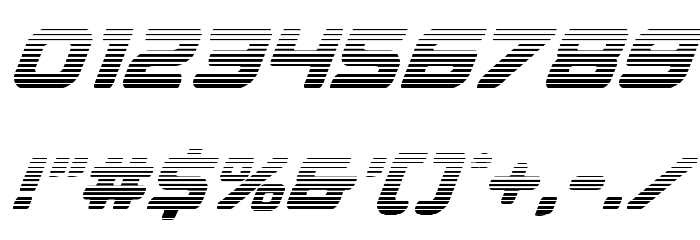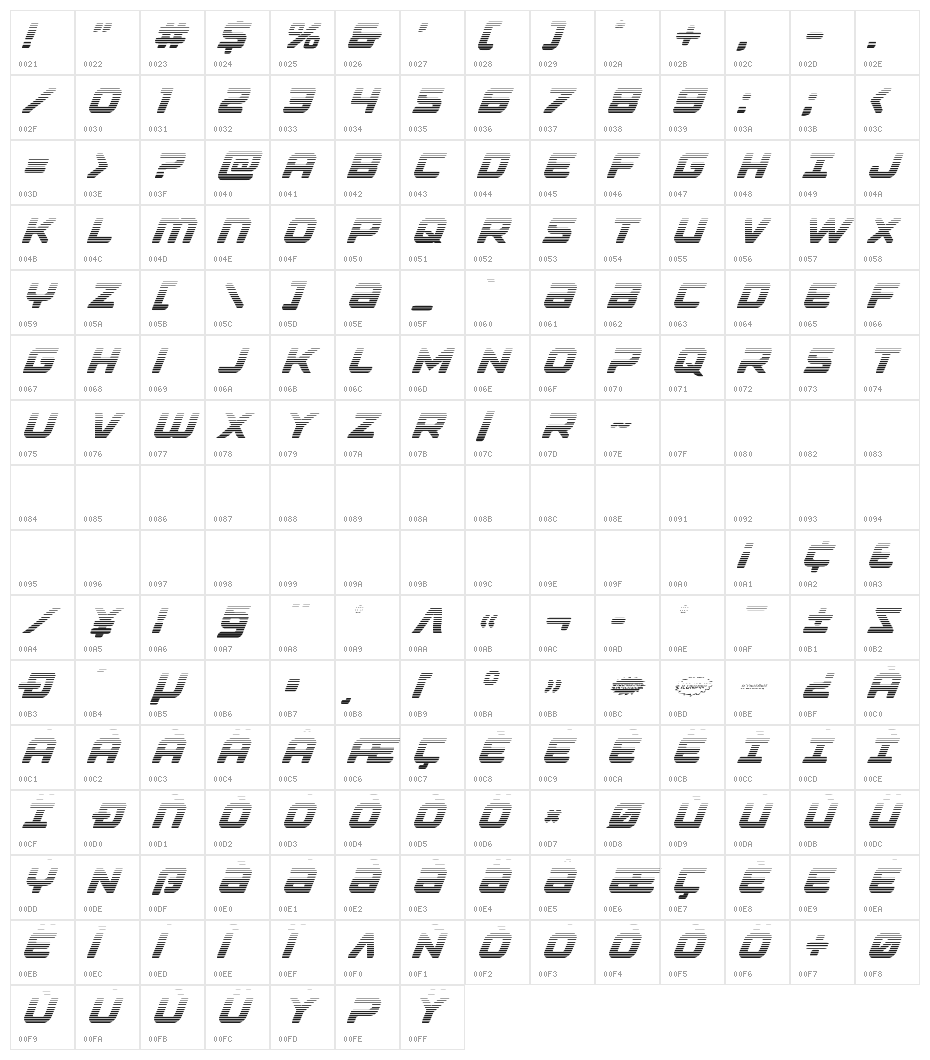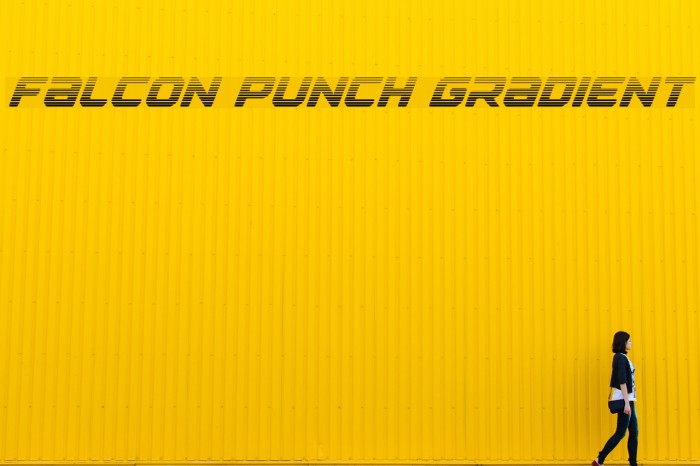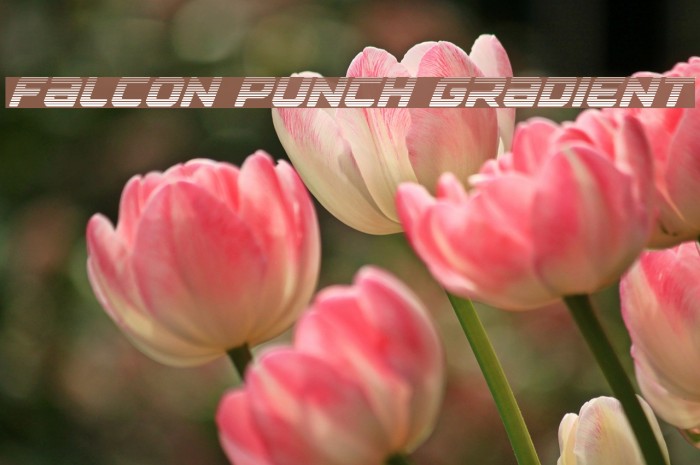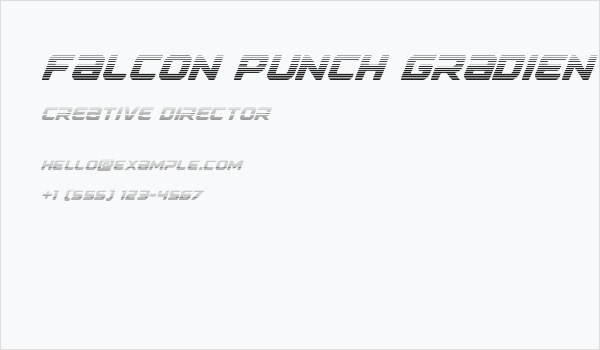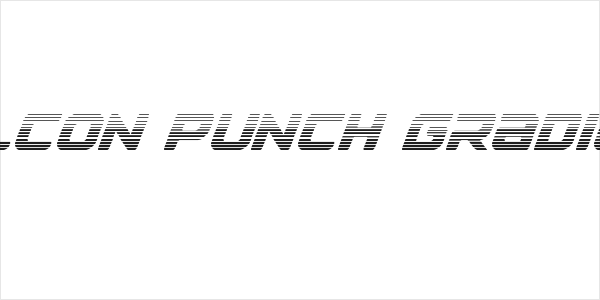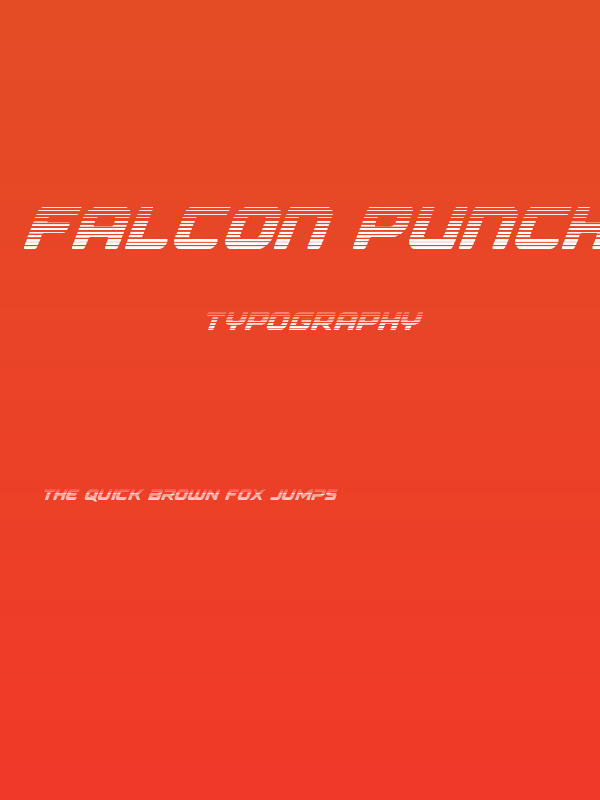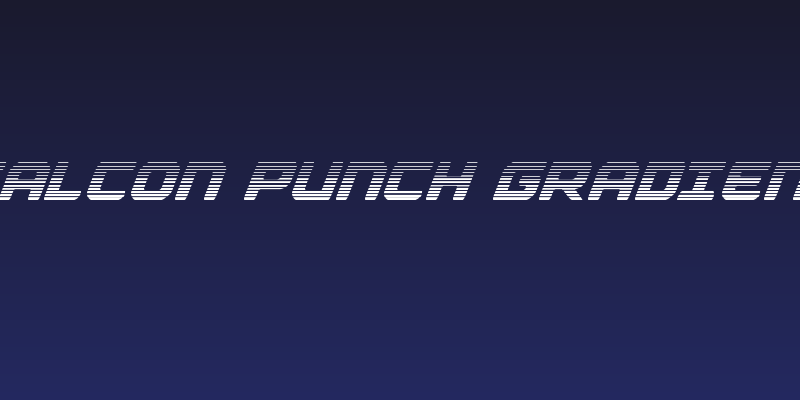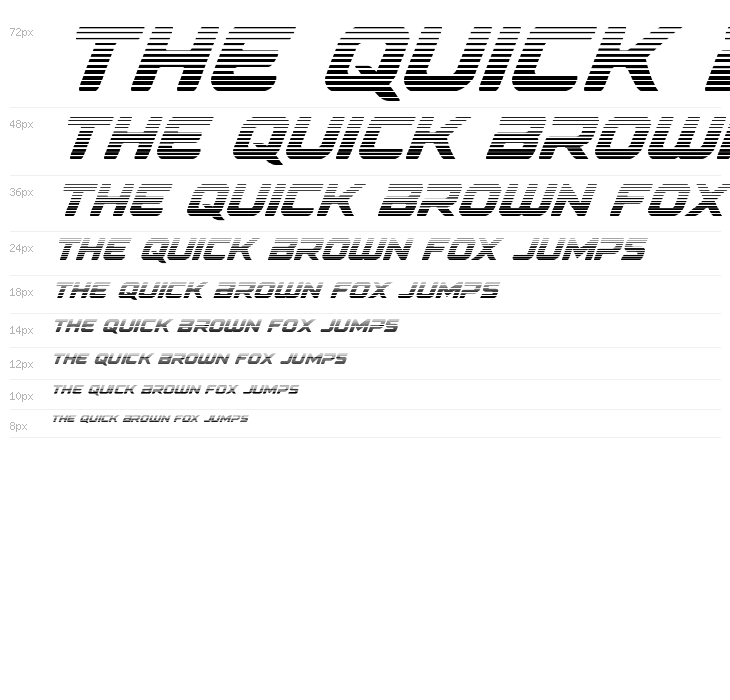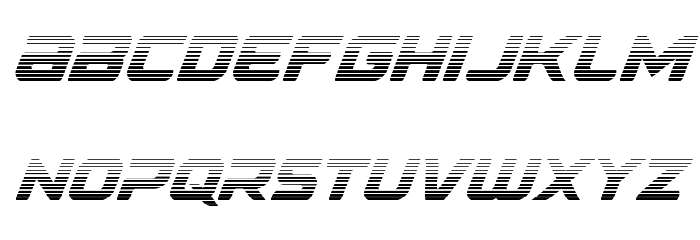
Falcon Punch Gradient Font
Falcon Punch Gradient Description
This font features a dynamic and futuristic design with a distinctive gradient effect created by horizontal lines that give the impression of motion and speed. The characters are bold and angular, with a slanted orientation that enhances the sense of forward movement. The uppercase and lowercase letters maintain a consistent style, while the numerals and special characters integrate seamlessly with the overall aesthetic. The font's unique appearance makes it stand out, making it ideal for projects that require a modern and energetic vibe.
| Proposed Projects | Ideal for sports branding, video game titles, automotive advertisements, and tech-related projects. |